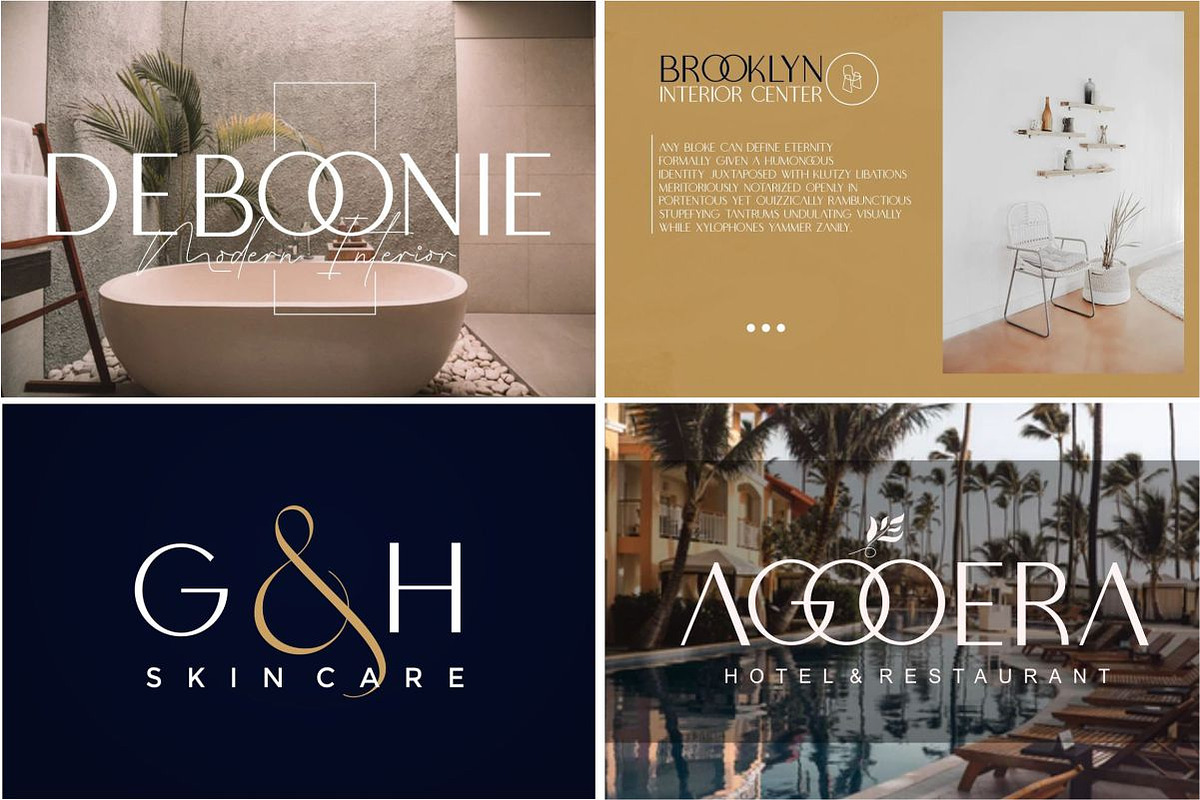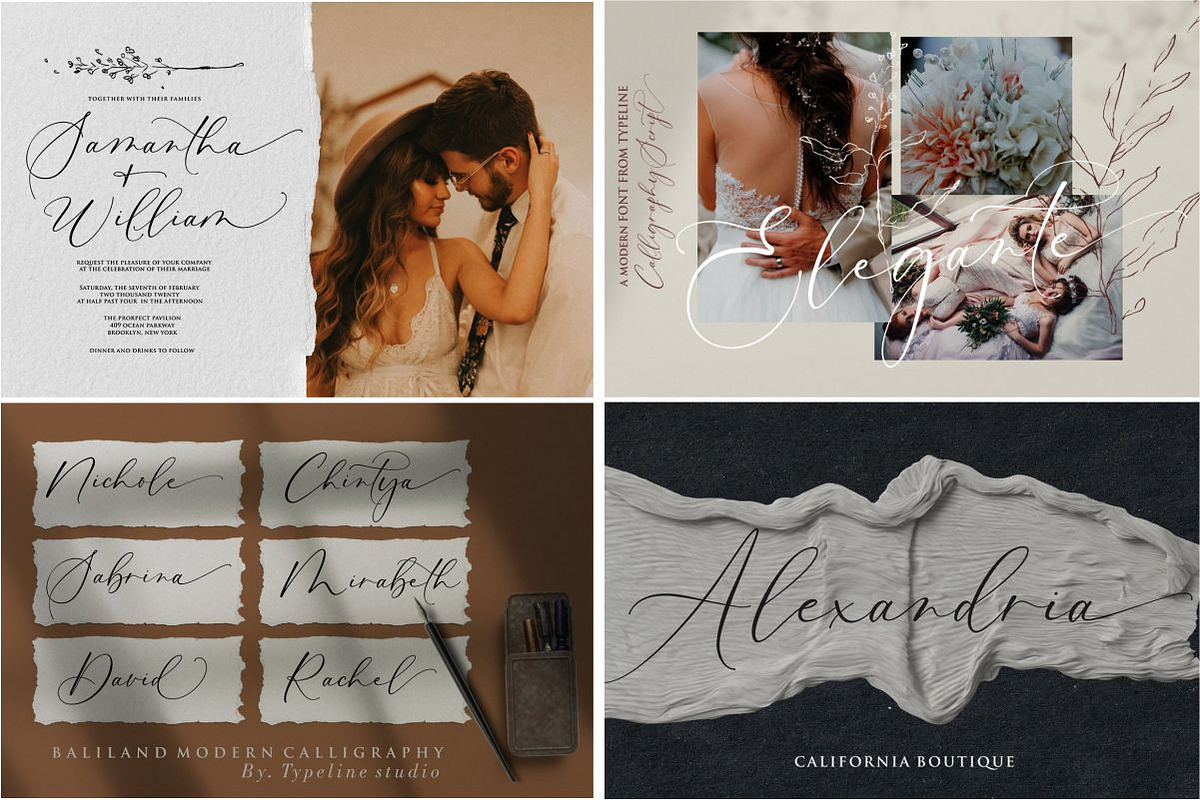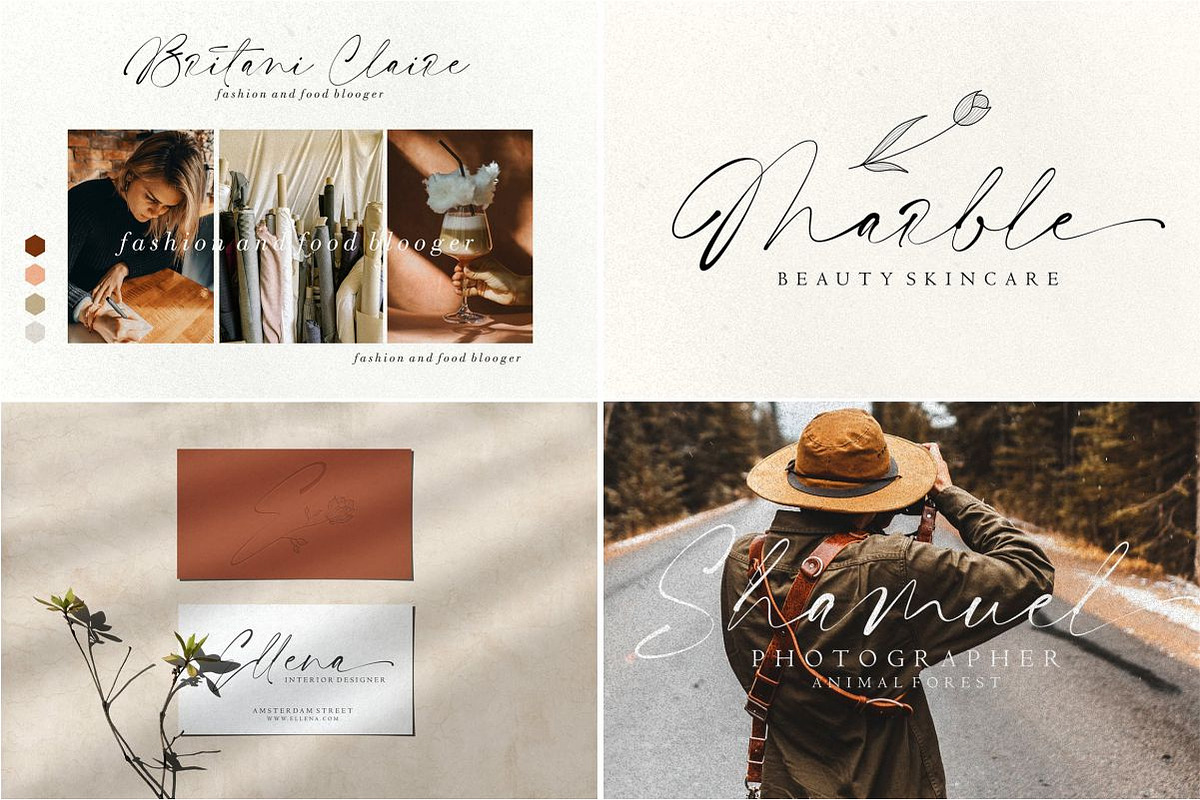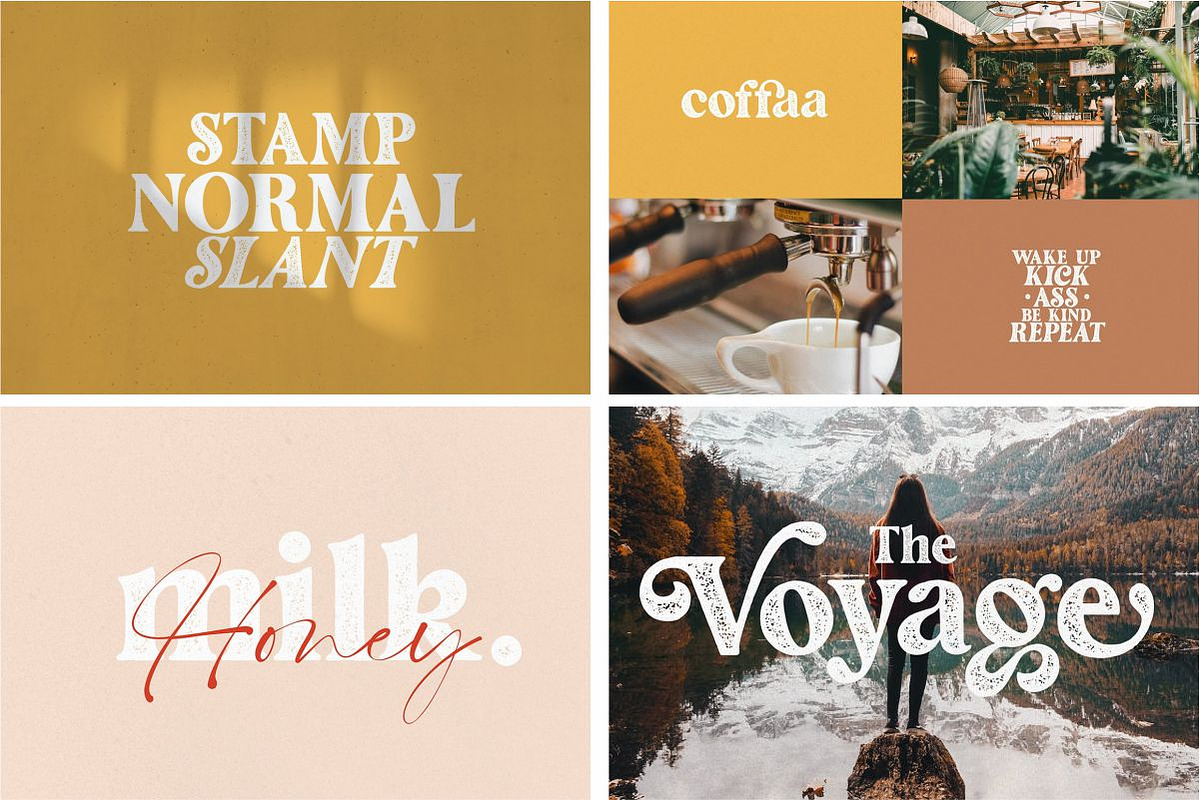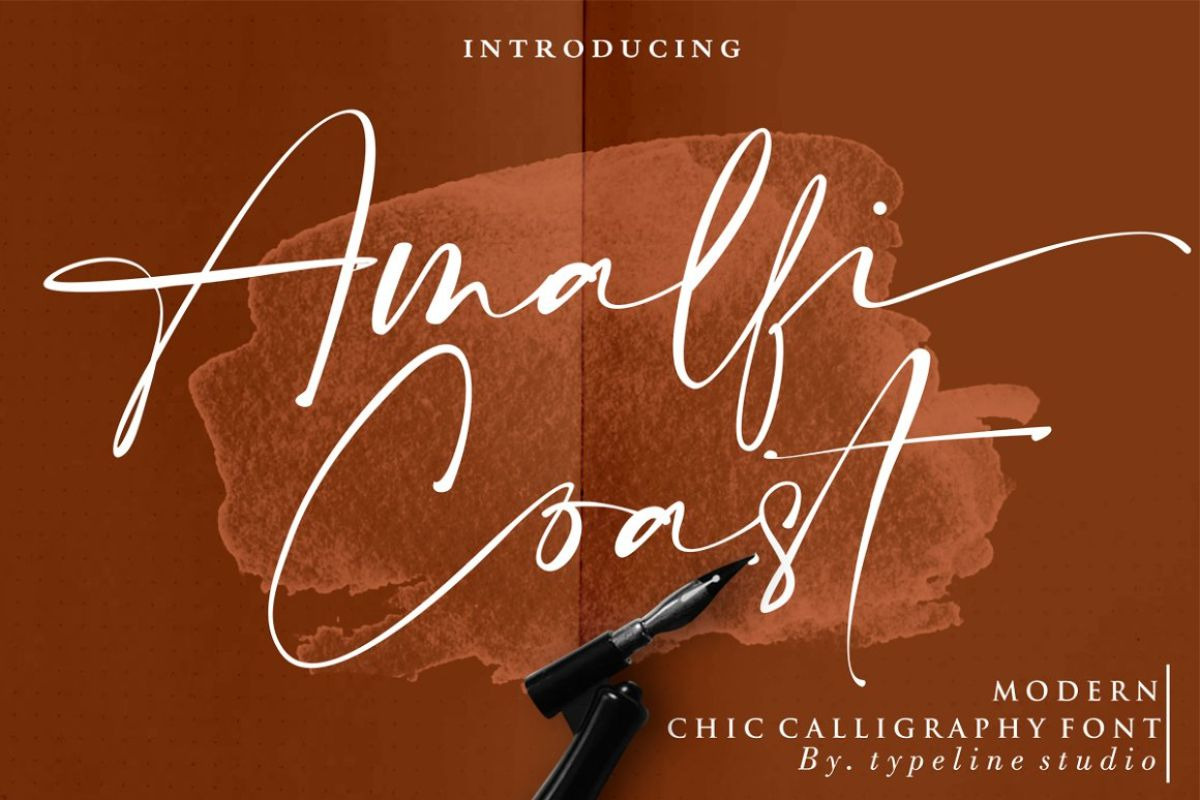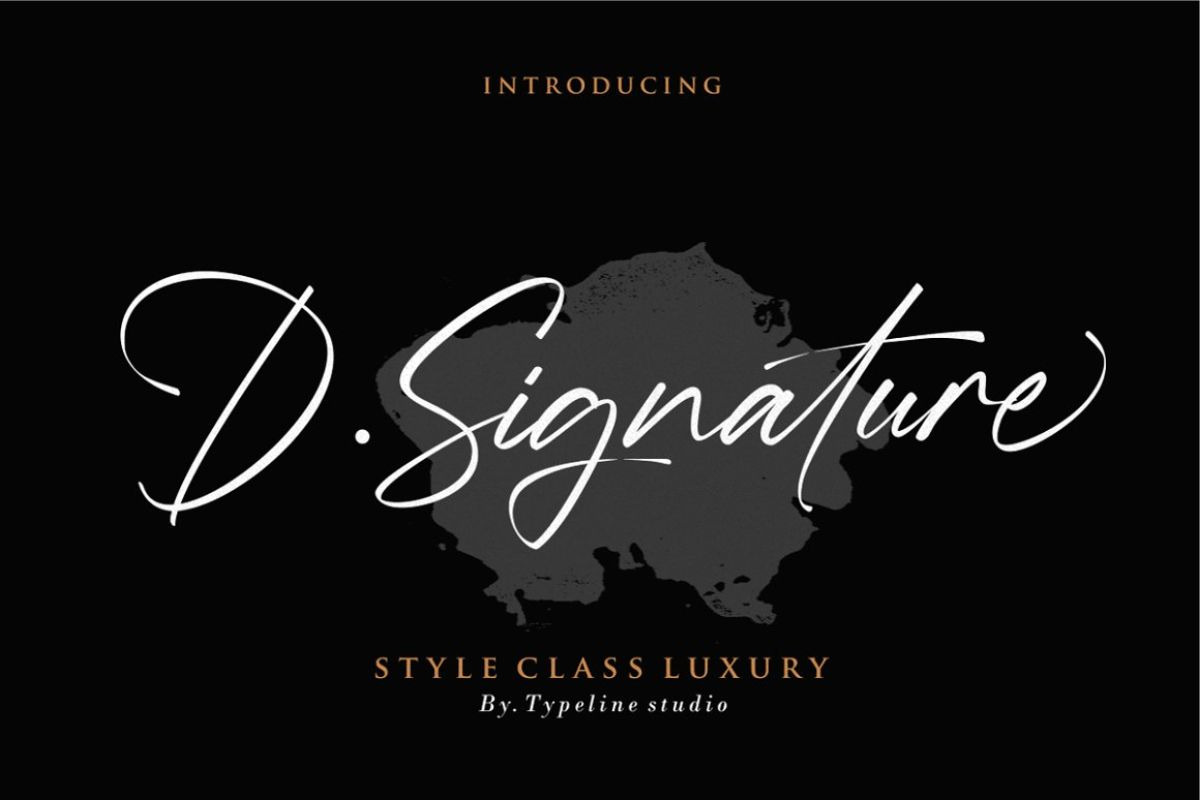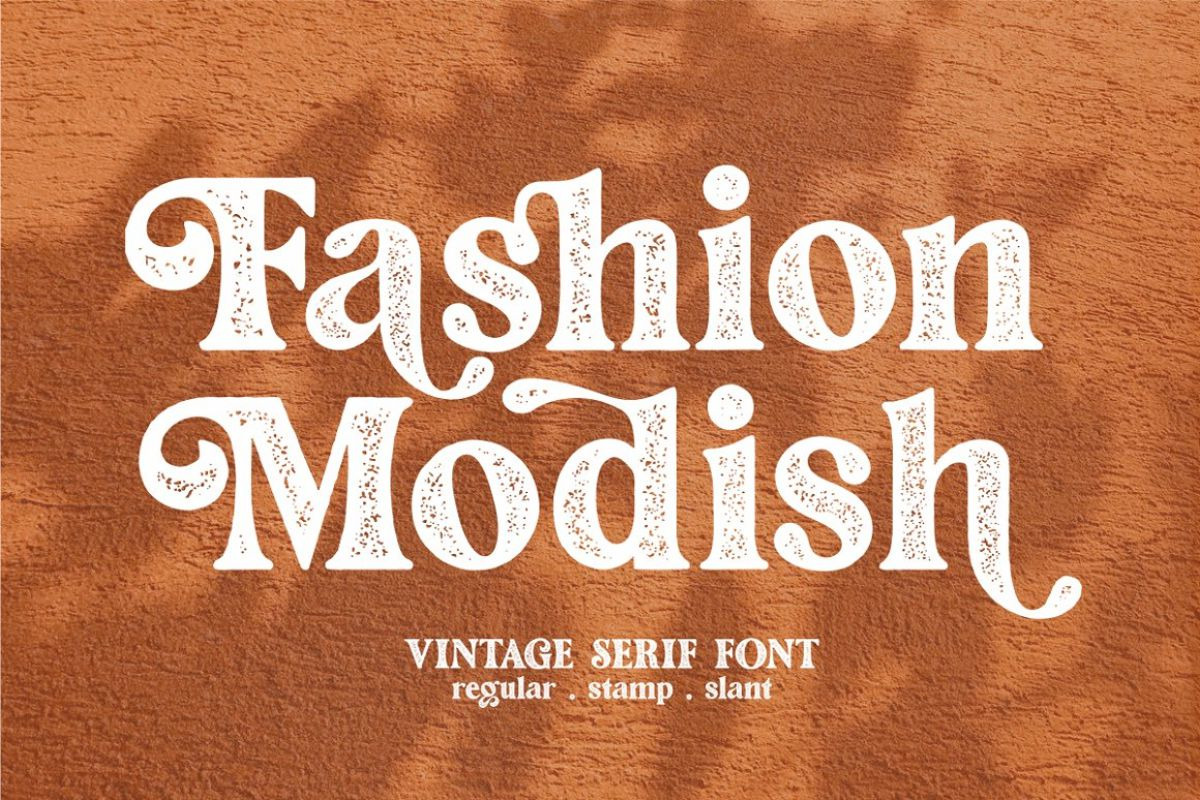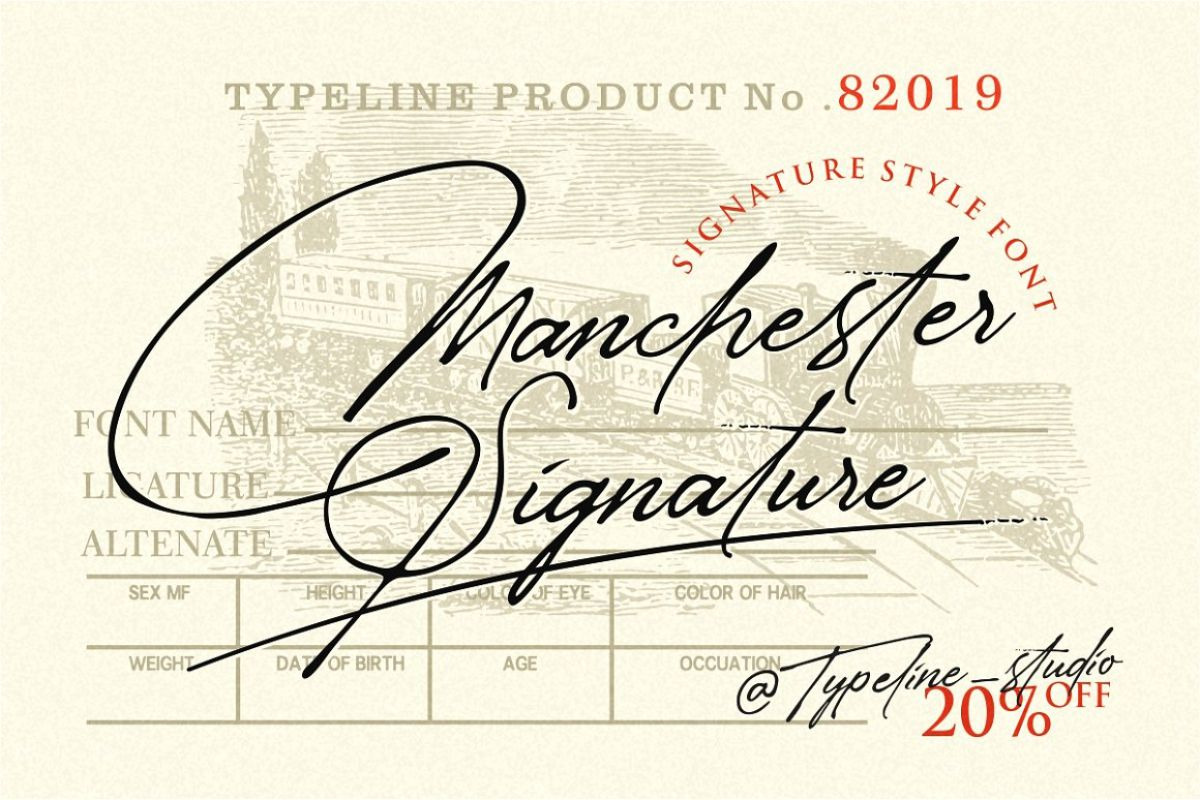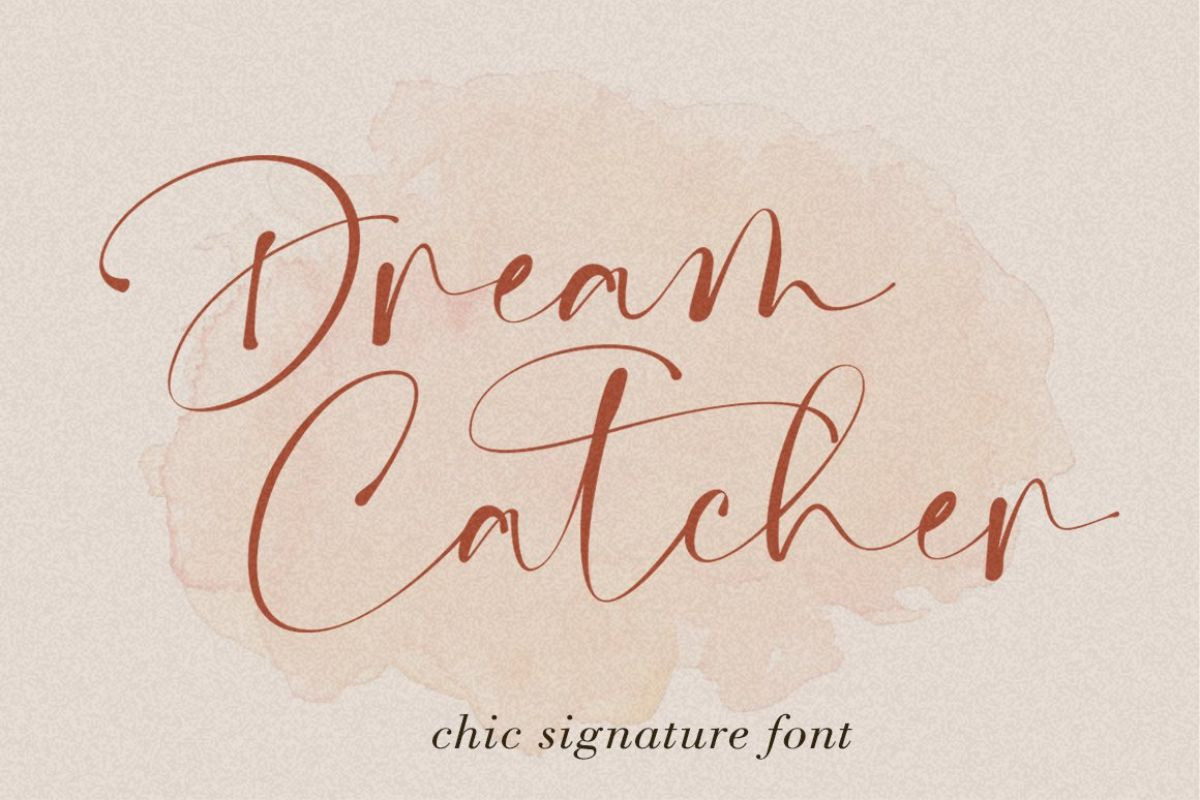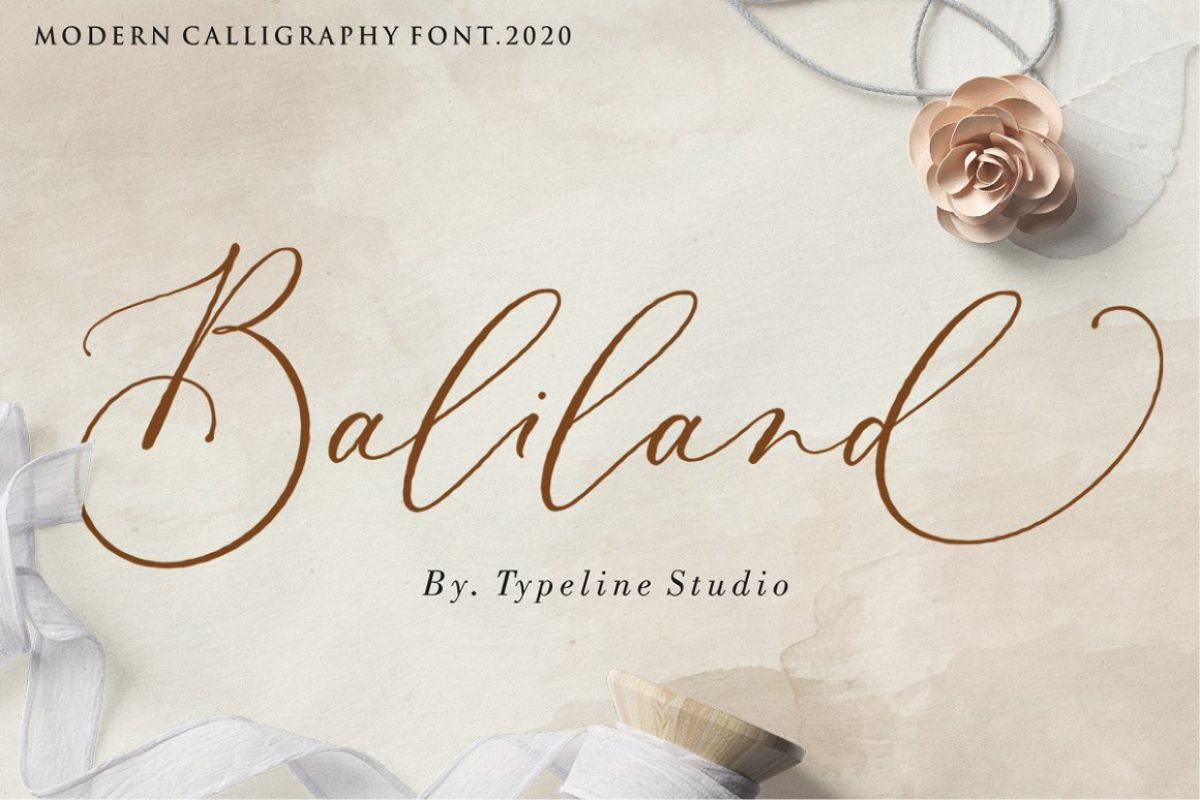
The Modern Handwritten Font Bundle
The Modern Handwritten Font Bundle collection combines some of this year's best and best selling fonts on the creative market.
These items can be perfect for creating packaging and content for product brands, creating wedding invitations, designing brand assets for restaurants, creating content on social media or company logos plus many other potentials.